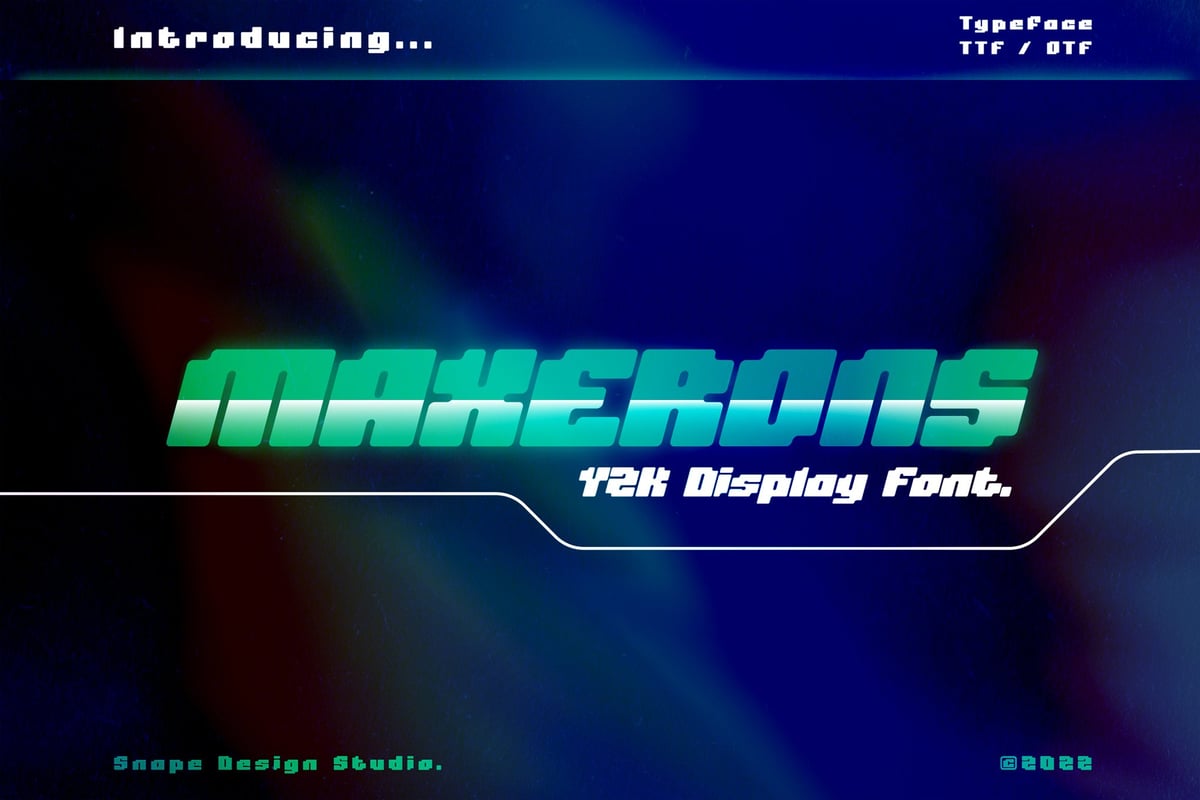
Maxerons - Y2K Font
Transport your designs to the millennium era with this bold Y2K-inspired futuristic typeface. Maxerons captures the essence of Y2K design culture through music and pop aesthetics, making it the perfect choice for technology projects, digital interfaces, and space galaxy themes. This distinctive font brings authentic millennium-era flair to contemporary creative work. Ideal applications include: Movie titles and film projects Documentary and media productions Logo and branding design Poster and p...